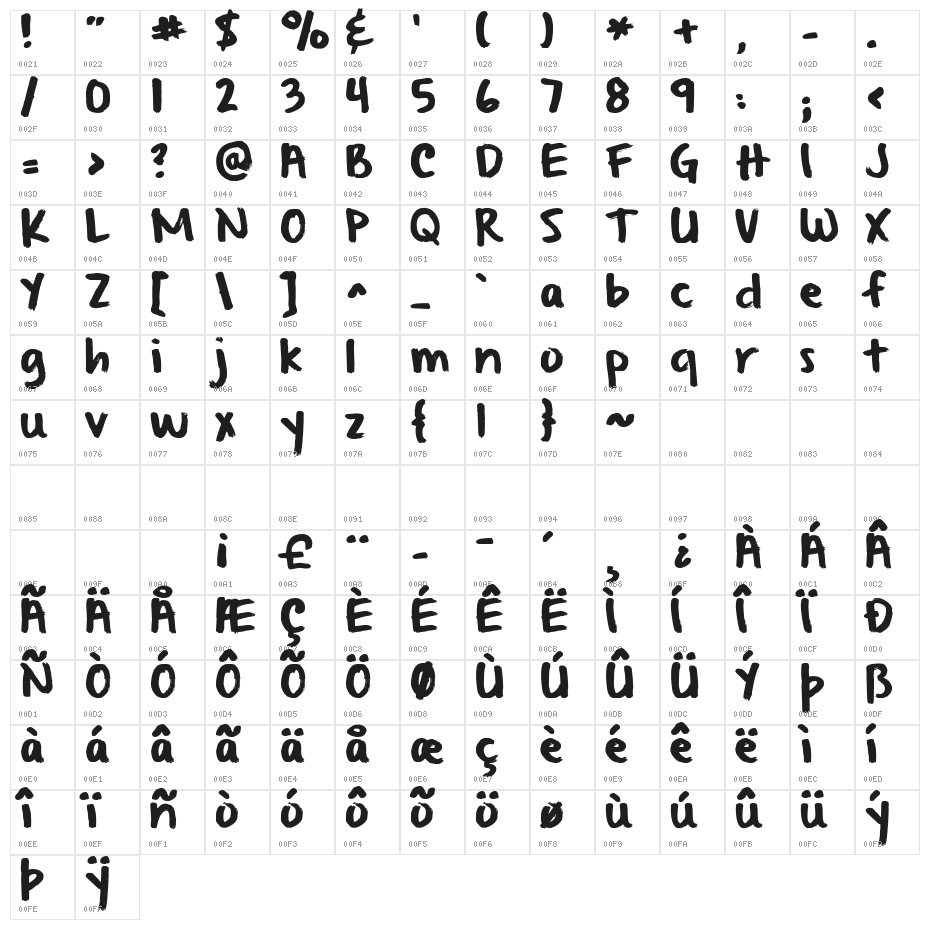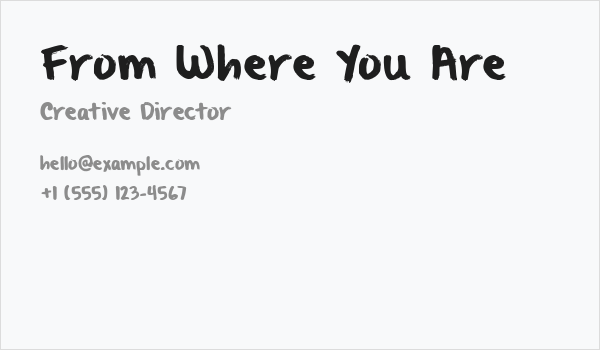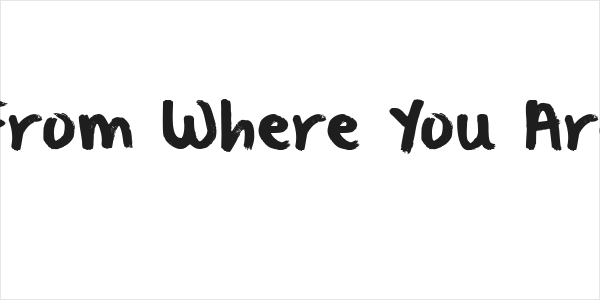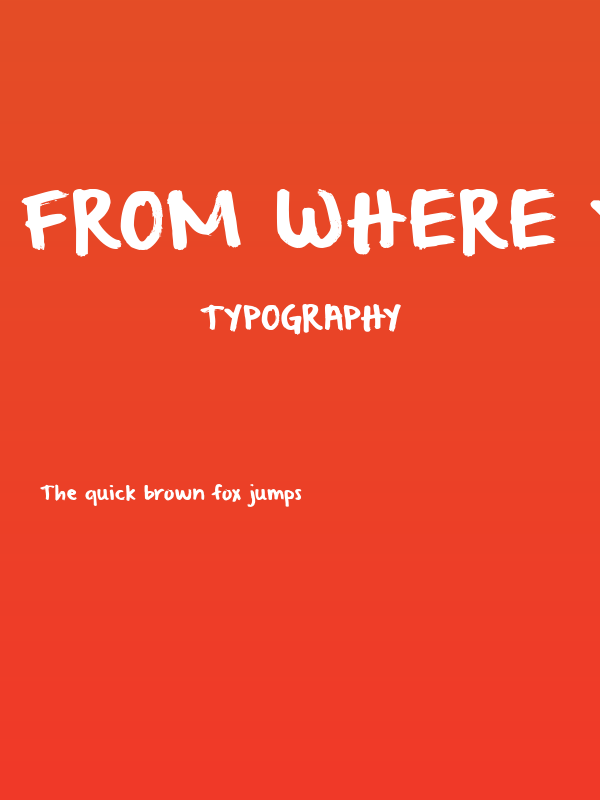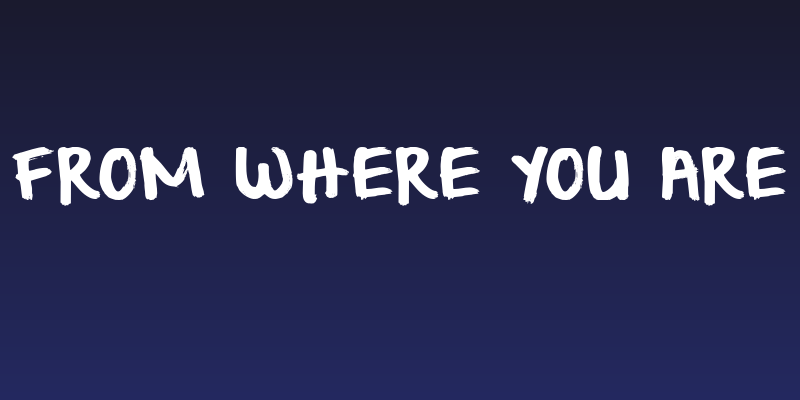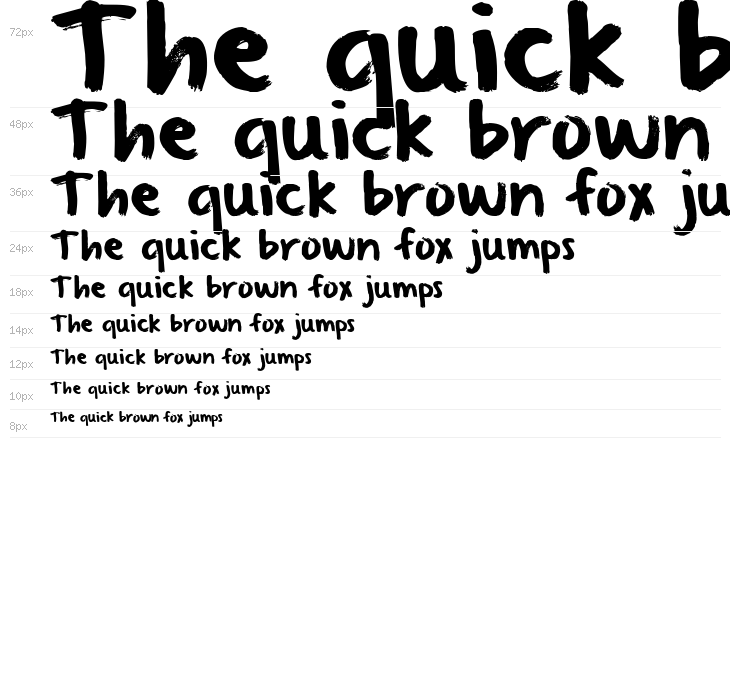
From Where You Are Font
From Where You Are Description
This font features a bold, expressive style with a hand-painted appearance. The characters are thick and slightly irregular, giving them a dynamic and energetic feel. The strokes are broad and uneven, adding a sense of movement and spontaneity. This font captures the essence of a brush script, with each letter appearing as if it was crafted with a swift, confident stroke. The uppercase and lowercase letters maintain a consistent style, while the numerals and special characters complement the overall aesthetic. This font is perfect for projects that require a personal, artistic touch.
| Proposed Projects | Ideal for posters, branding, packaging, and creative projects that need a personal, artistic flair. |